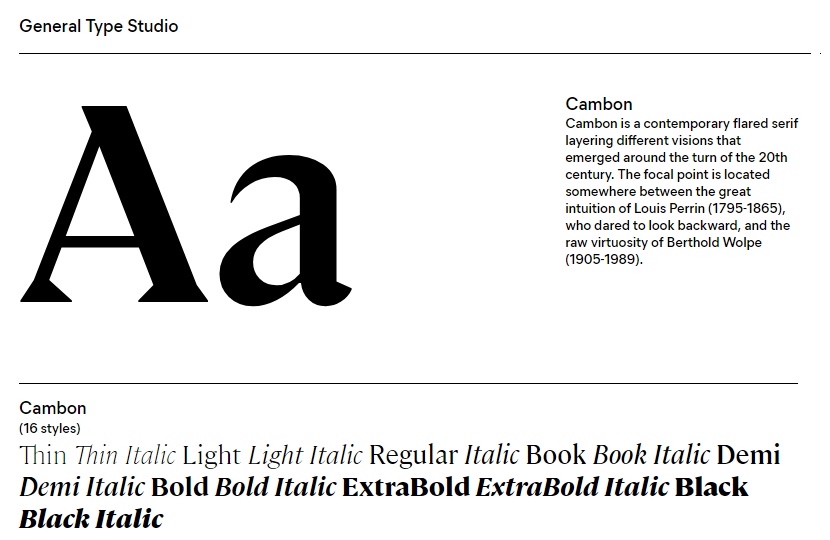
Cambon Font
Cambon Font is perfect for luxury fashion branding, high-end boutique signage, elegant magazine layouts, sophisticated product packaging, upscale hotel materials, premium cosmetics branding, exclusive event invitations, refined corporate communications, prestigious awards ceremonies, and distinguished cultural institution materials.
What makes Cambon Font so exciting is its exquisite embodiment of Parisian elegance and timeless sophistication that captures the essence of refined French style through impeccable typographic craftsmanship. This luxuriously crafted typeface features graceful letterforms with classical proportions and distinctive character details that immediately convey prestige, cultural refinement, and the effortless elegance of haute couture design sensibility. The font's aristocratic construction and sophisticated aesthetic create an instant sense of luxury heritage and cultured distinction, making it ideal for projects that need to communicate exclusivity, artistic excellence, and the irresistible allure of French sophistication to discerning audiences who appreciate the finest expressions of style and cultural refinement.
The Cambon Font family typically includes multiple elegant weights and refined styles, often featuring light, regular, and bold variations along with graceful italic versions. Luxury font collections frequently offer additional sophisticated elements such as stylistic alternates, ornamental ligatures, and classical flourishes that enhance the prestigious aesthetic and provide designers with comprehensive tools for creating truly distinguished and memorable high-end communications.
The sophisticated nature of Cambon Font makes it particularly effective for targeting ultra-refined demographics where projecting cultural sophistication and artistic heritage are essential for premium market positioning. Luxury brand managers and high-end creative directors will find this font especially valuable for campaigns that must establish immediate recognition of cultural authority and attract audiences who value artistic excellence, historical significance, and timeless elegance.
What distinguishes Cambon Font is its ability to convey French sophistication while maintaining universal appeal across diverse luxury applications. This cosmopolitan characteristic makes it suitable for international luxury brands that need to project Parisian elegance while connecting with sophisticated audiences worldwide.
Professional designers appreciate that Cambon Font brings invaluable cultural prestige to projects across industries including luxury fashion, fine arts, premium hospitality, and exclusive retail. Its sophisticated character and French-inspired appeal make it essential for organizations targeting the most cultivated markets where cultural refinement, artistic heritage, and timeless elegance are primary luxury indicators.
The carefully cultivated sophistication of Cambon Font ensures consistent luxury positioning across all high-end communication opportunities while honoring the timeless principles of French design excellence.